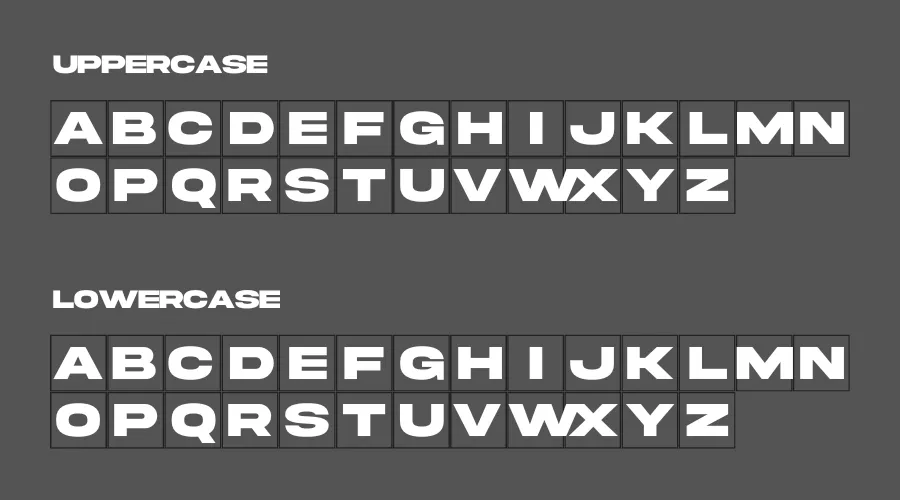
About Akira Expanded Font
A sans serif style with a bold and dynamic style, Akira Expanded Font. The creative foundry known as Typologic is responsible for this contemporary typeface. The free version can be found here.
More than 100 powerful curves and geometric shapes combine the characters. Letters in this font are elegant and useful.
For official applications and designs with a sophisticated feel, this appealing and bold typeface works well. Due to the font’s remarkable and fascinating appearance, the creator of this typeface gained huge recognition throughout the entire globe.
The premium version of this typeface comes in three weights: super bold, outline, and light. This lovely typeface is frequently chosen by designers to create beautiful designs that are appropriate for adding an exceptional touch to their work. This iconic font style is ideal for pairing with the very beautiful straight Outta Compton font.
For official purposes, this lovely typeface works best in many businesses and institutions. The sans serif design is appropriate for animation logos, logos for cartoon movies, logos for films, etc.
This contemporary typeface can be used for the headlines of websites, television shows, and printed materials.
The lovely typeface has a fantastic appearance that works well for various creative applications. This elegant typeface works well for research and documentation.
Utilize this typeface while creating posters and images in design programs including Canva and Adobe Illustrator. The typeface is frequently used by web designers for their thumbnail designs and various website layouts.
What kind of font is Akira Expanded Typeface?
It is a sans serif typeface that was formed by the Typologic. More than 100 powerful curves and geometric shapes combine the characters.